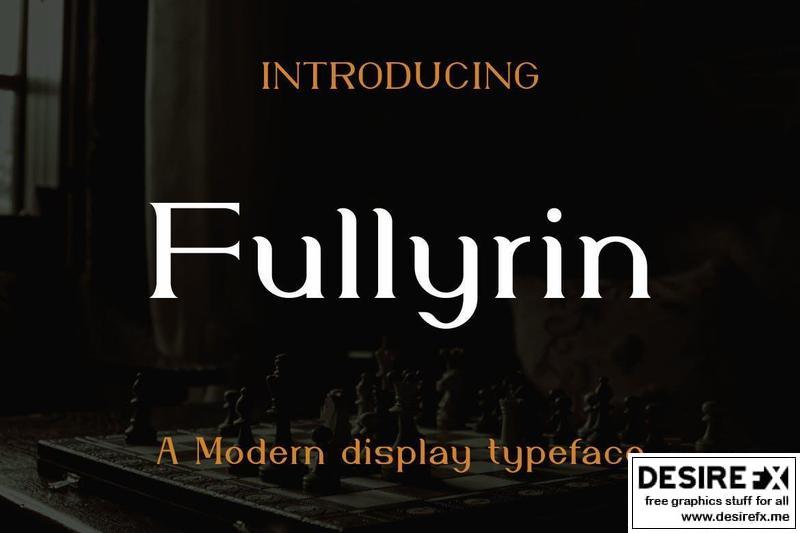
Fullyrin Font EWUG3H7
Introducing our new product Fullyrin Font – Modern Font
Fullyrin Font – Modern Font is a bold and authentic display font. The font is suitable for any branding project like logo, t-shirt printing, esport, and many more. outstanding in a wide range of contexts.